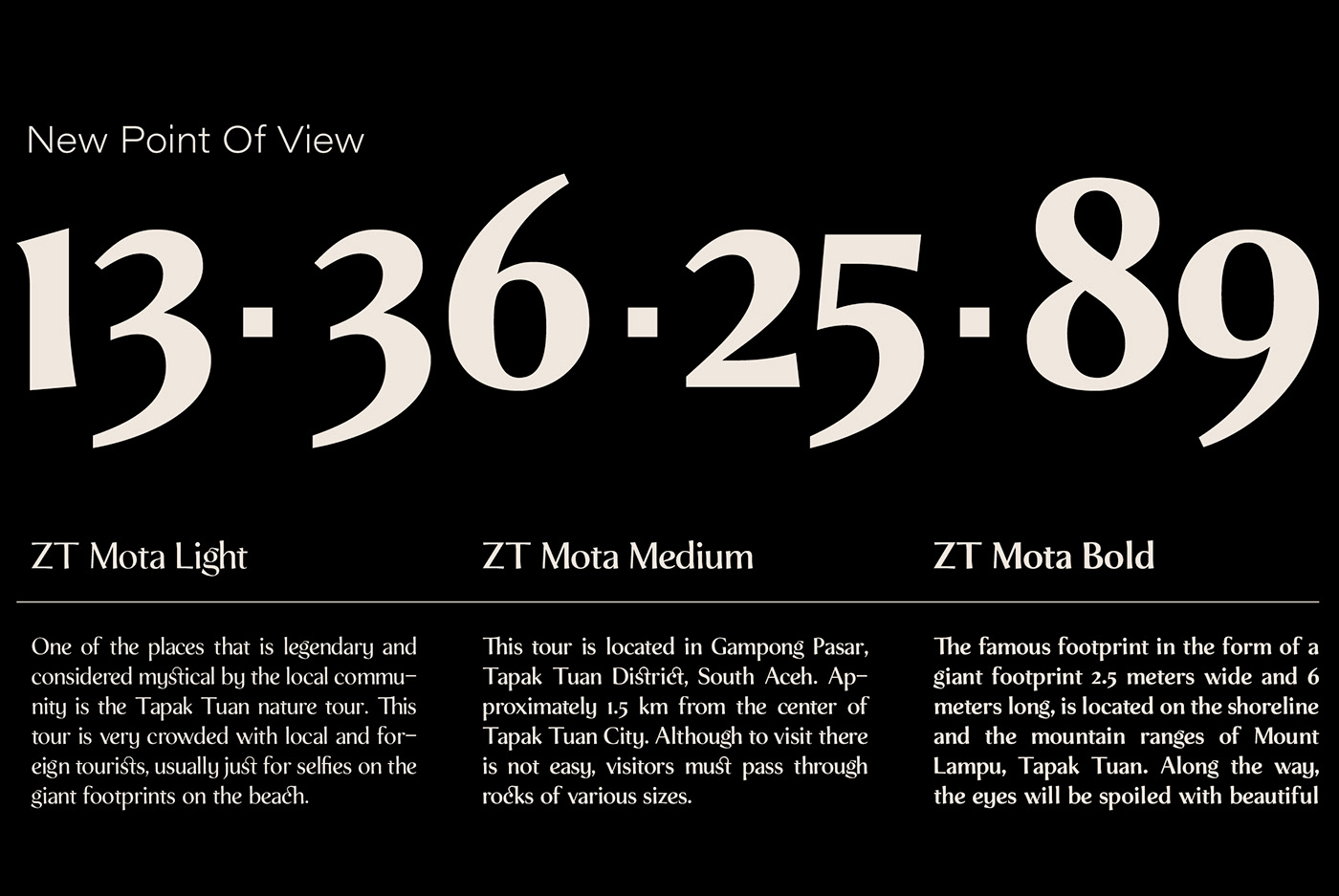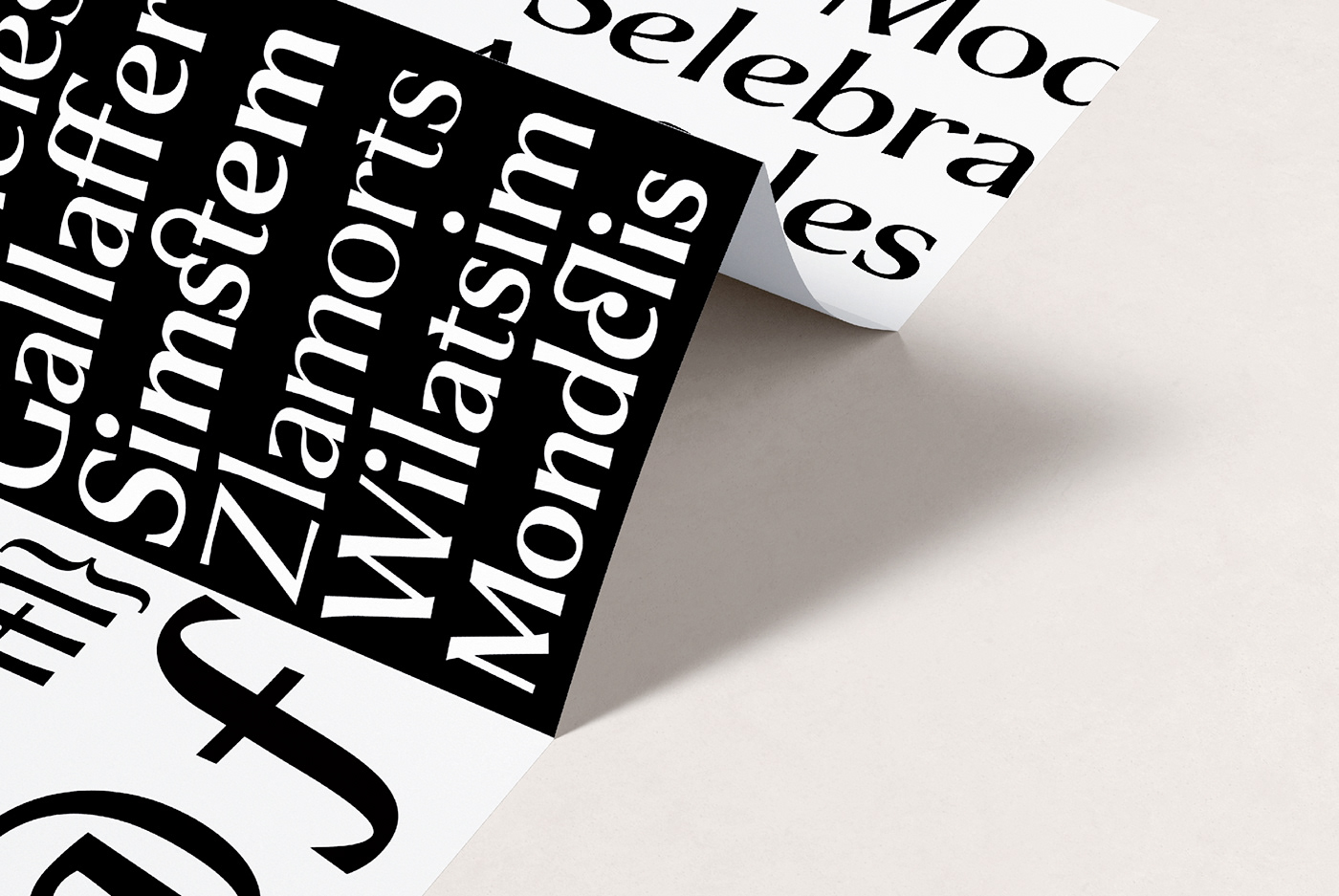
ZT MOTA - DISPLAY TYPEFACE
ZT Mota is a bold and elegant typeface. It has a temperamental character but is more flexible towards various stylistic designs, reflecting more in its graphics the transitional stage between classical serifs of varying proportions, leaning towards the stylized types of Roman culture.
All the ZT Mota styles are based on the same core but with a completely different expression which is to have an extra large x-height and bold so that the font looks bold as if the writing on the font was actually carved out of stone, perfect for an efficient choice for use of distinguishable displays such as headlines, packaging, magazines, posters, and advertisements, among others.